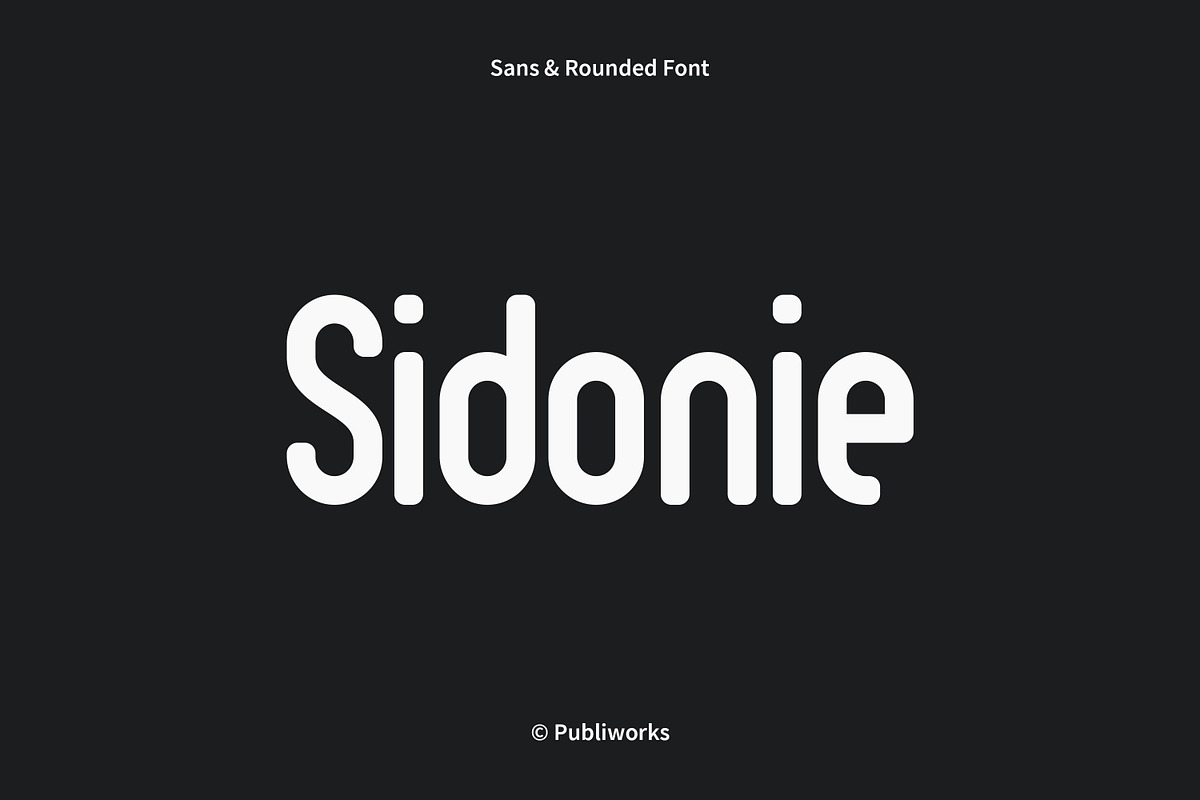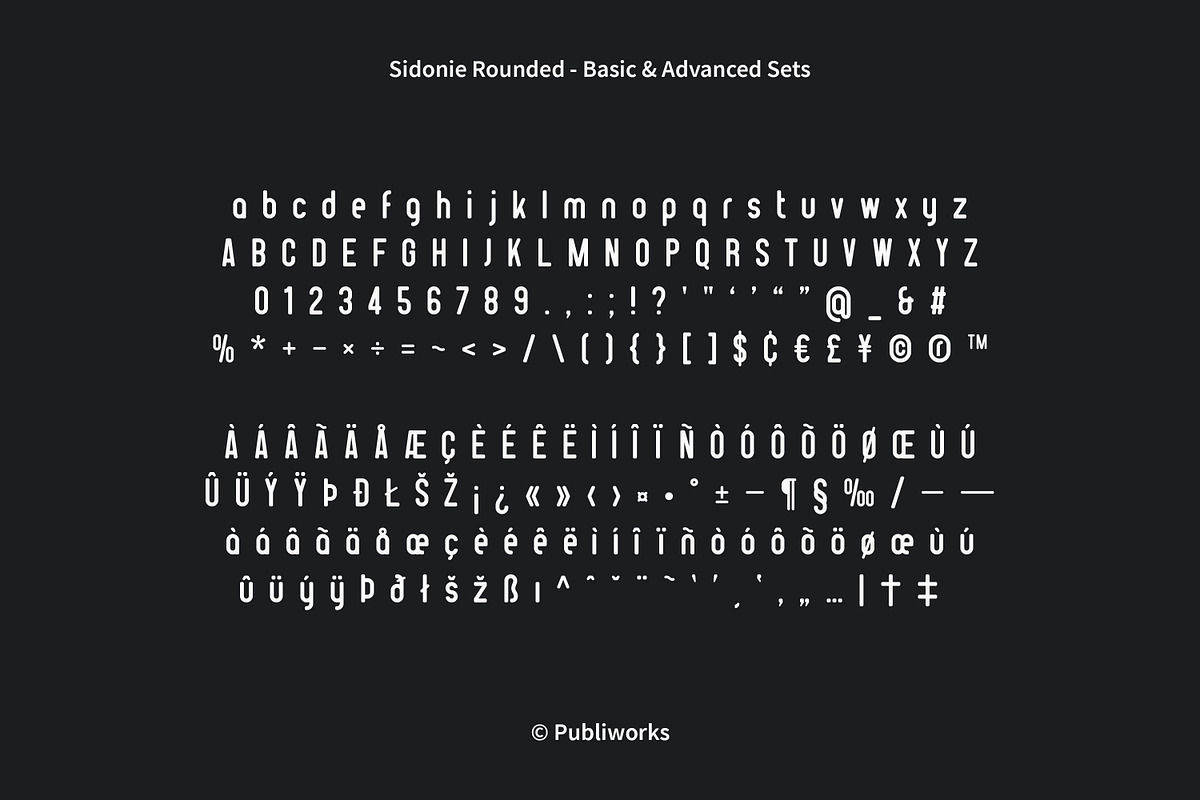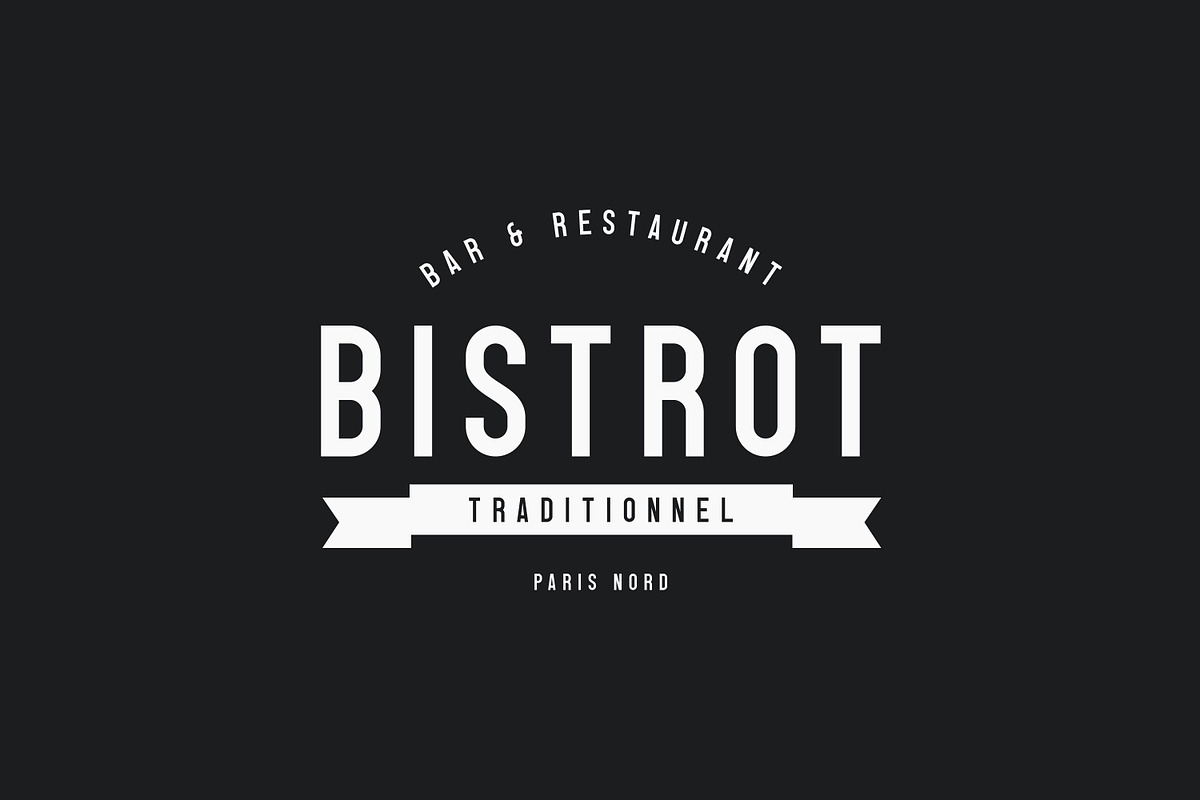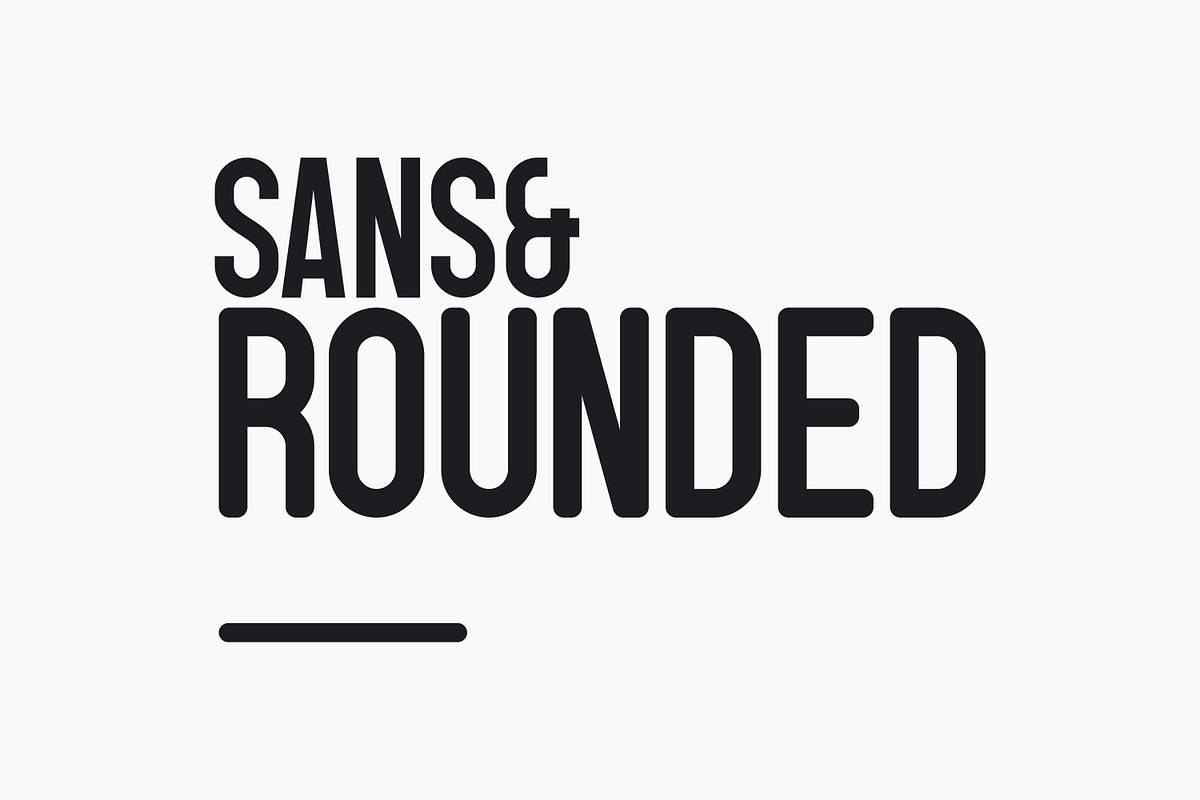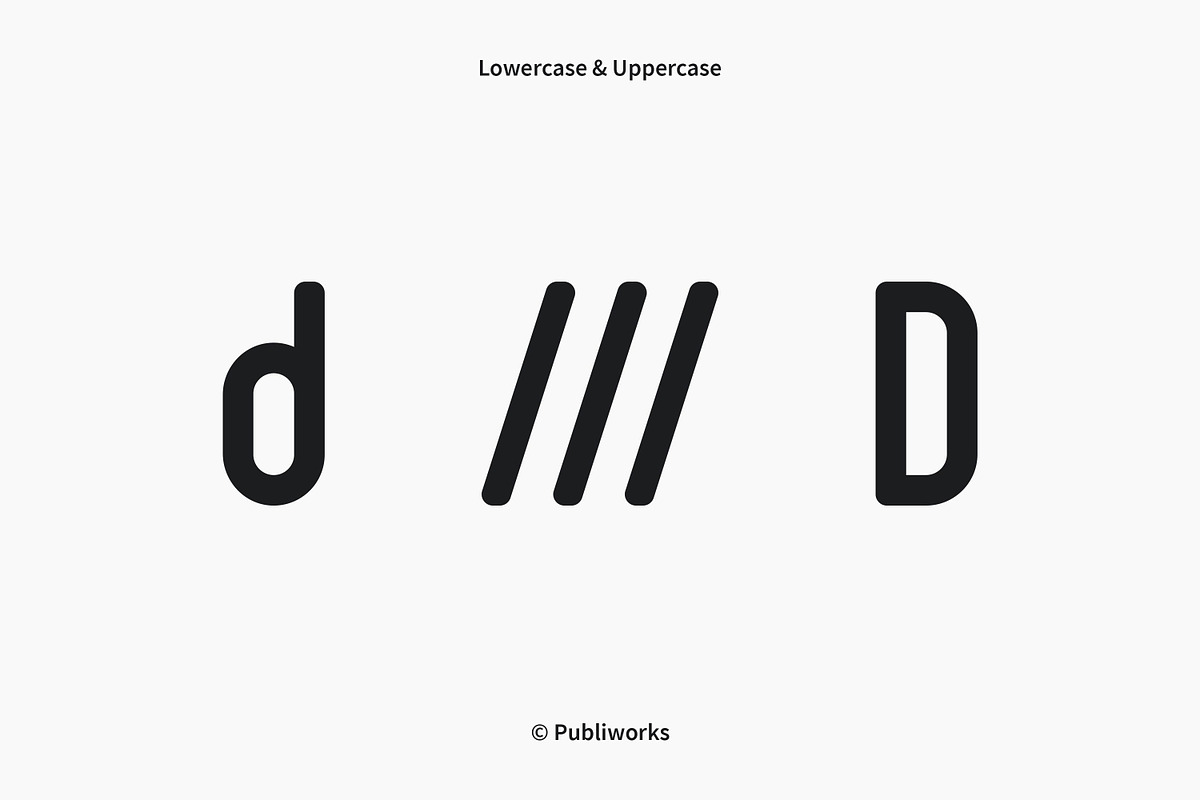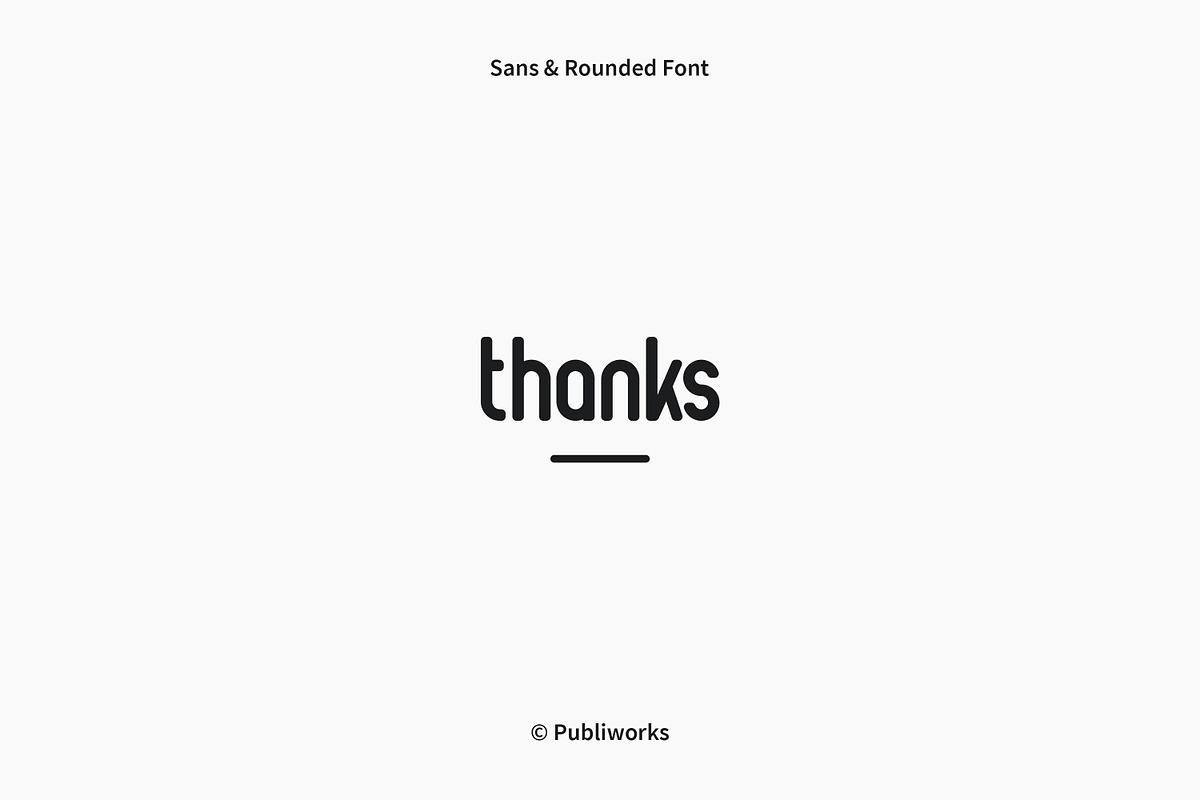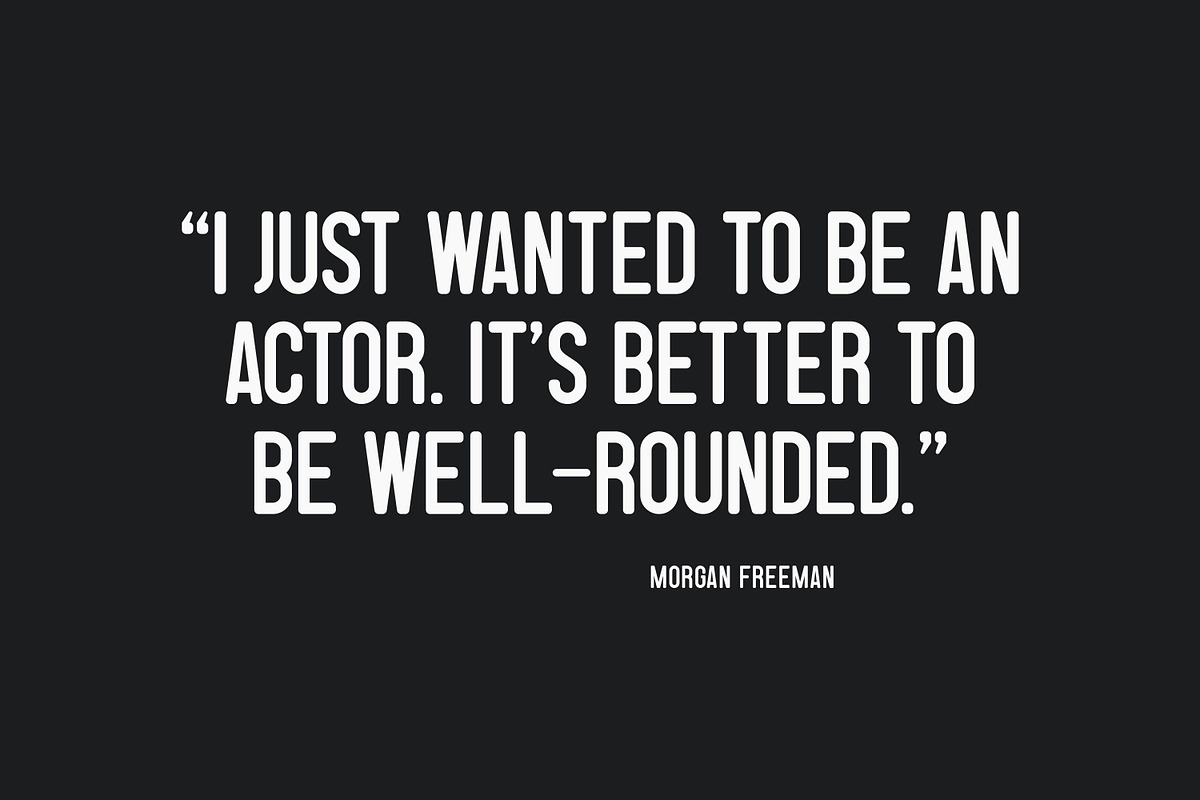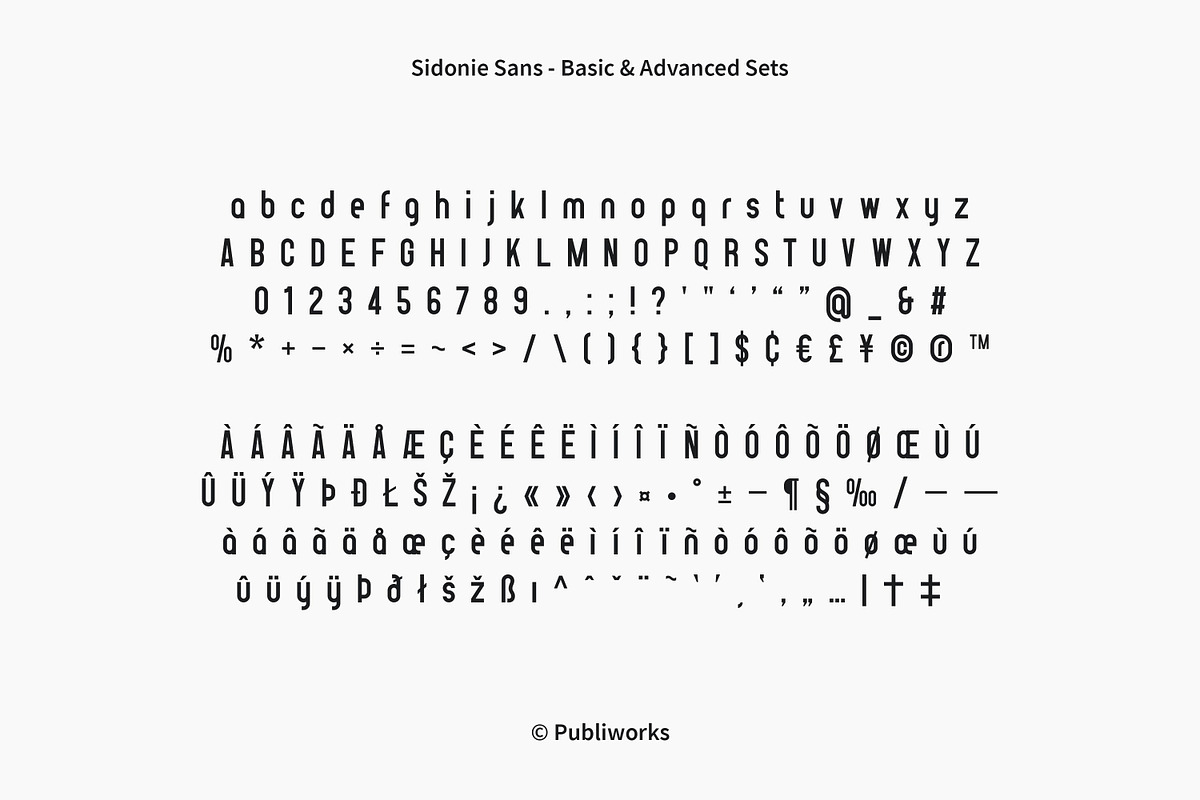
Sidonie - Sans & Rounded Font
2 Styles (Regular, Rounded)
209 Characters (Basic & Advanced Sets)
Lowercase & Uppercase (Unicase Style)
Sidonie - Sans & Rounded Font by Publiworks fits naturally into Branding, posters, packaging, typography.